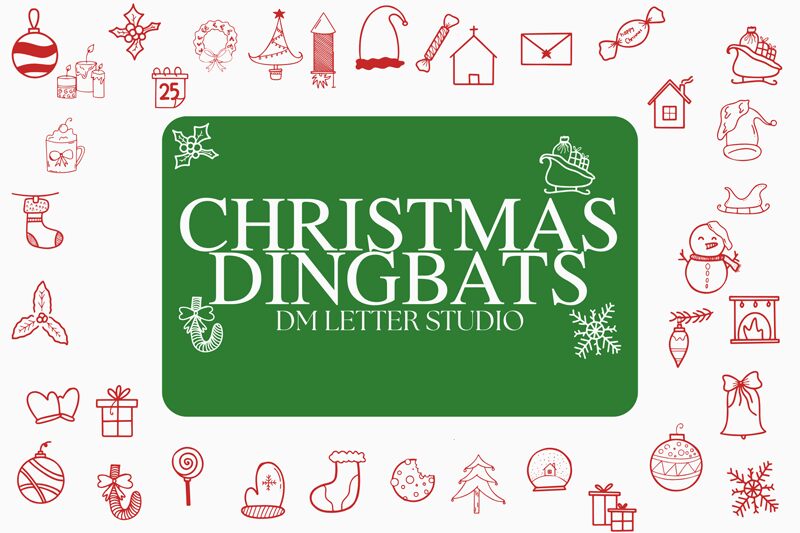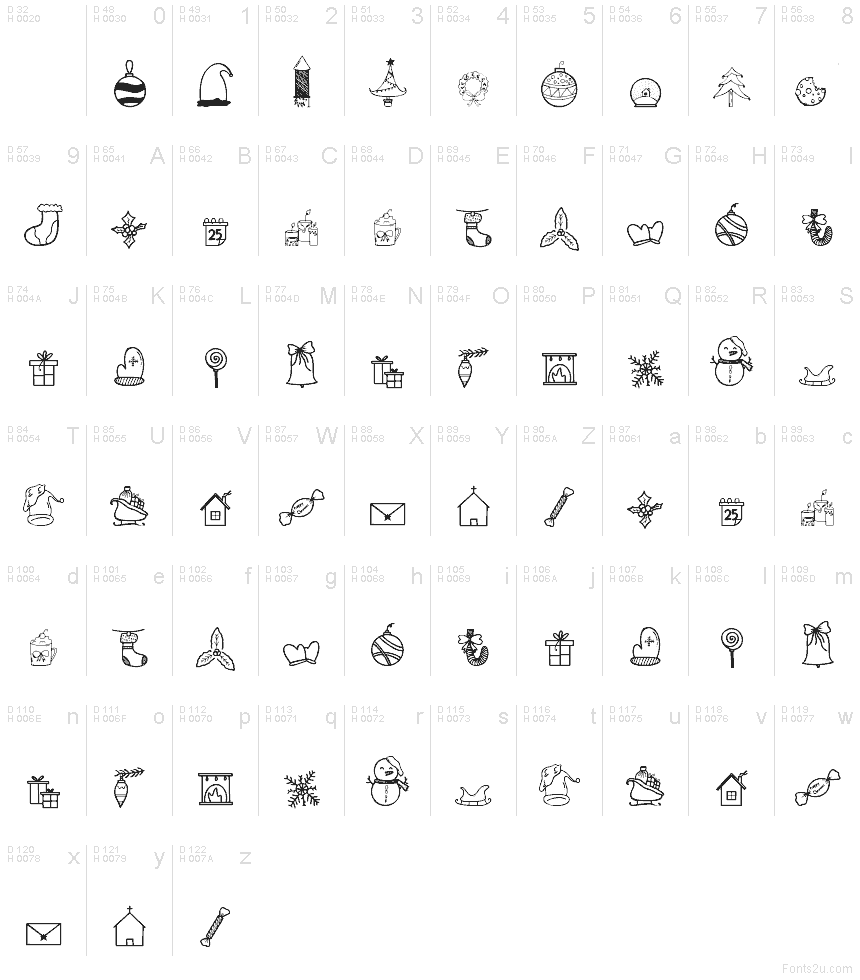
Christmas Dingbat
Christmas Dingbat font by DM Letter Studio - Dimas Prasetyo is a free dingbat font that packs a whole Christmas story into a set of hand-drawn icons. From wobbly snowmen and striped ornaments to bells, bows, candy canes, and elf hats, each symbol feels like it was doodled with a fine black pen on holiday gift wrap—loose, playful, and full of charm. The slightly irregular outlines keep everything warm and personal, perfect when you want graphics that feel homemade instead of stock.
Using Christmas Dingbat, you can quickly dress up greeting cards, gift tags, party invitations, holiday newsletters, stickers, or cozy social media posts without hunting for separate clipart. The icons sit nicely as borders or scattered motifs and can be repeated to build quick patterns for wrapping paper or digital backdrops. This free font works beautifully alongside a clean sans-serif typeface: keep the text simple and let the festive dingbats carry the seasonal mood.